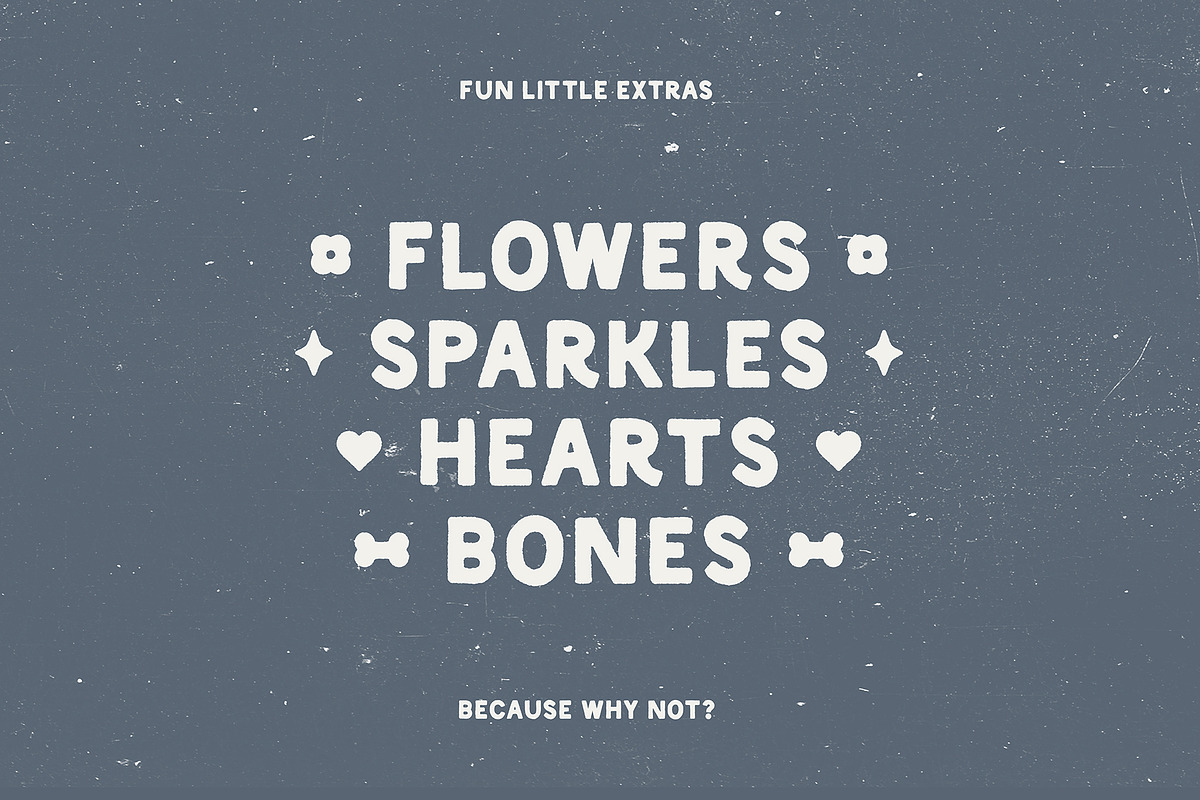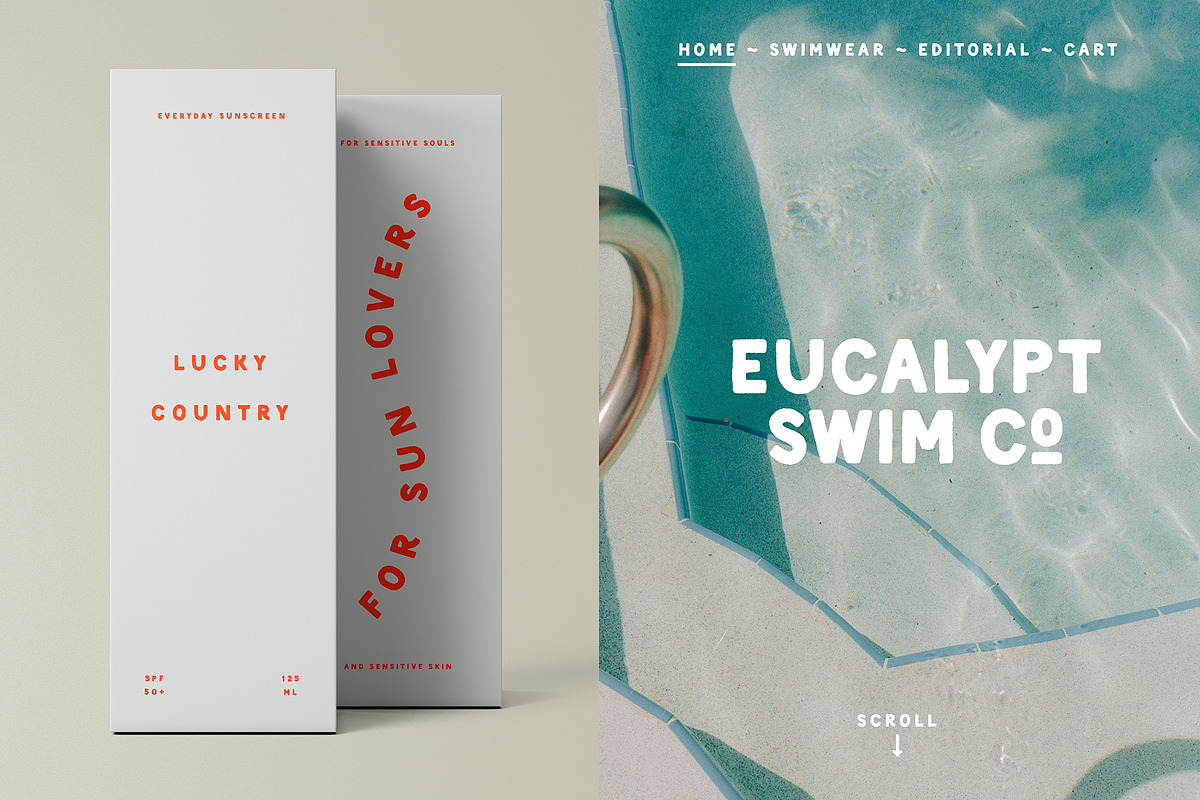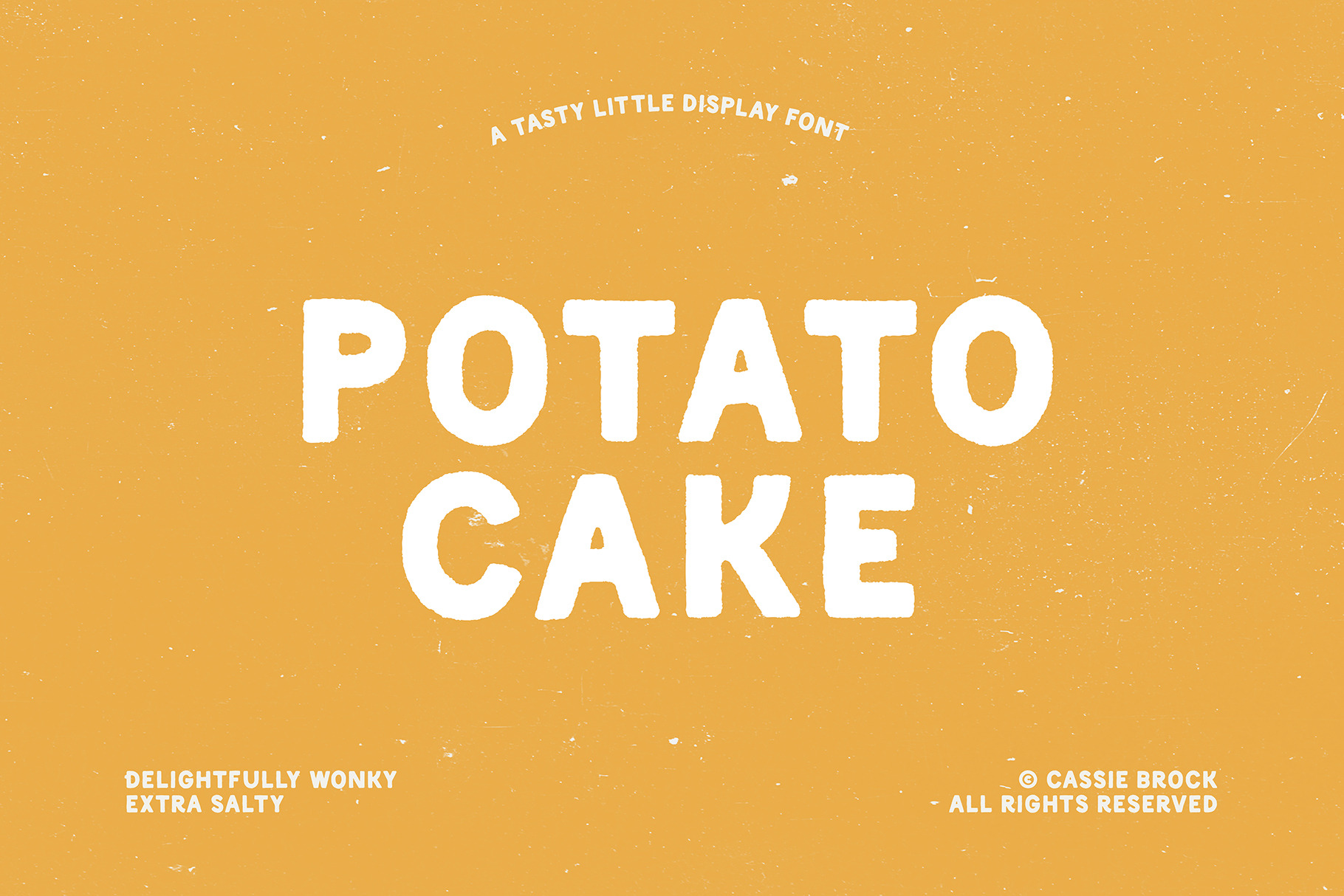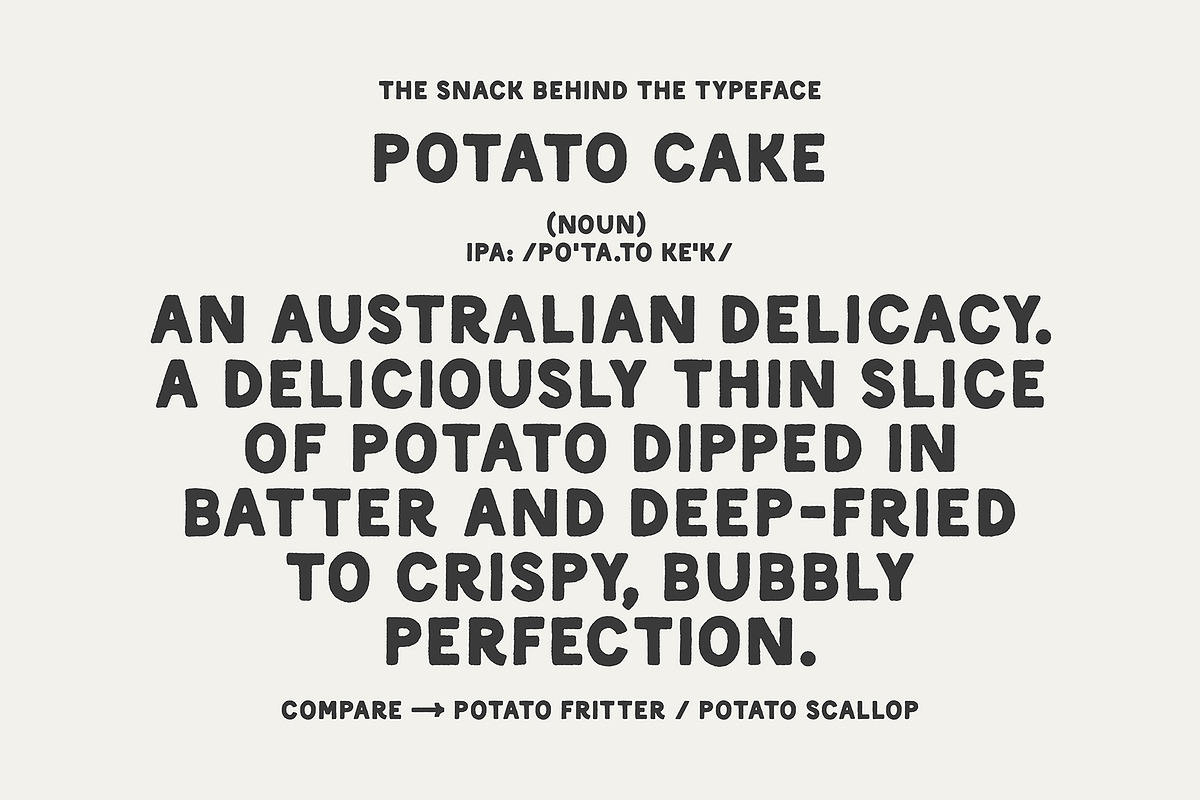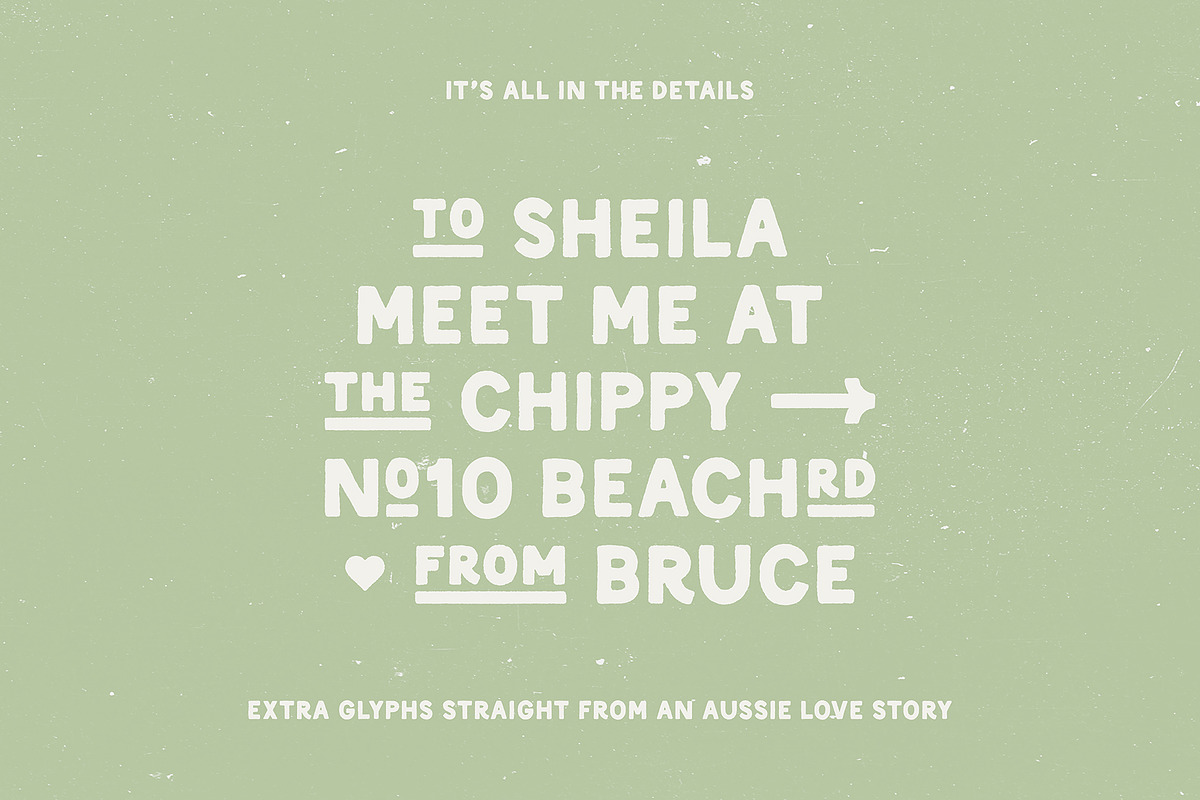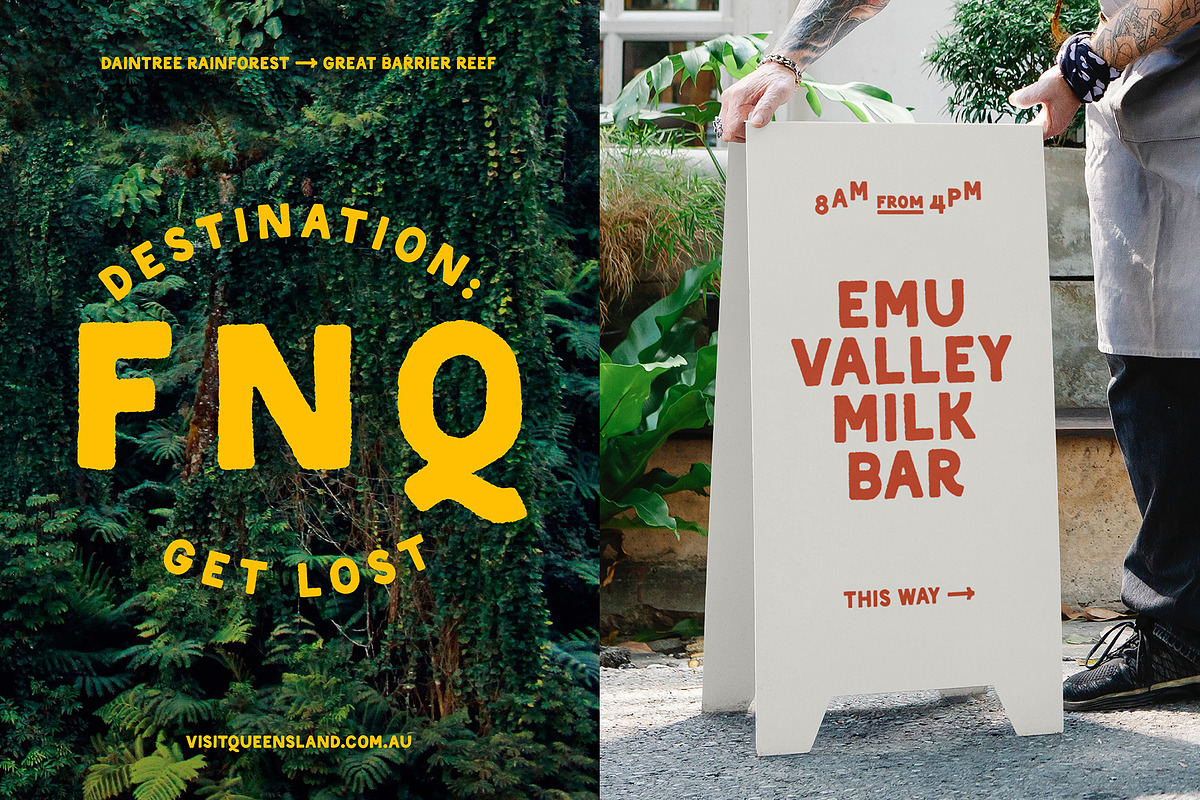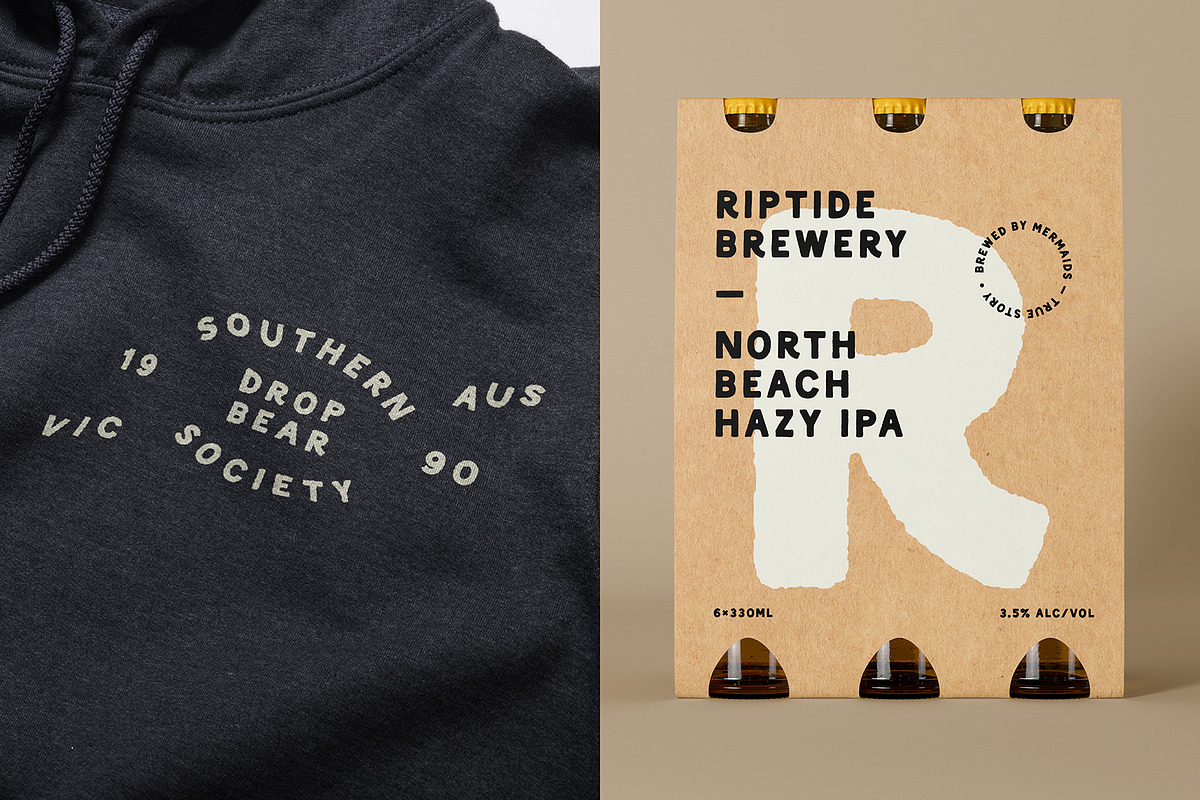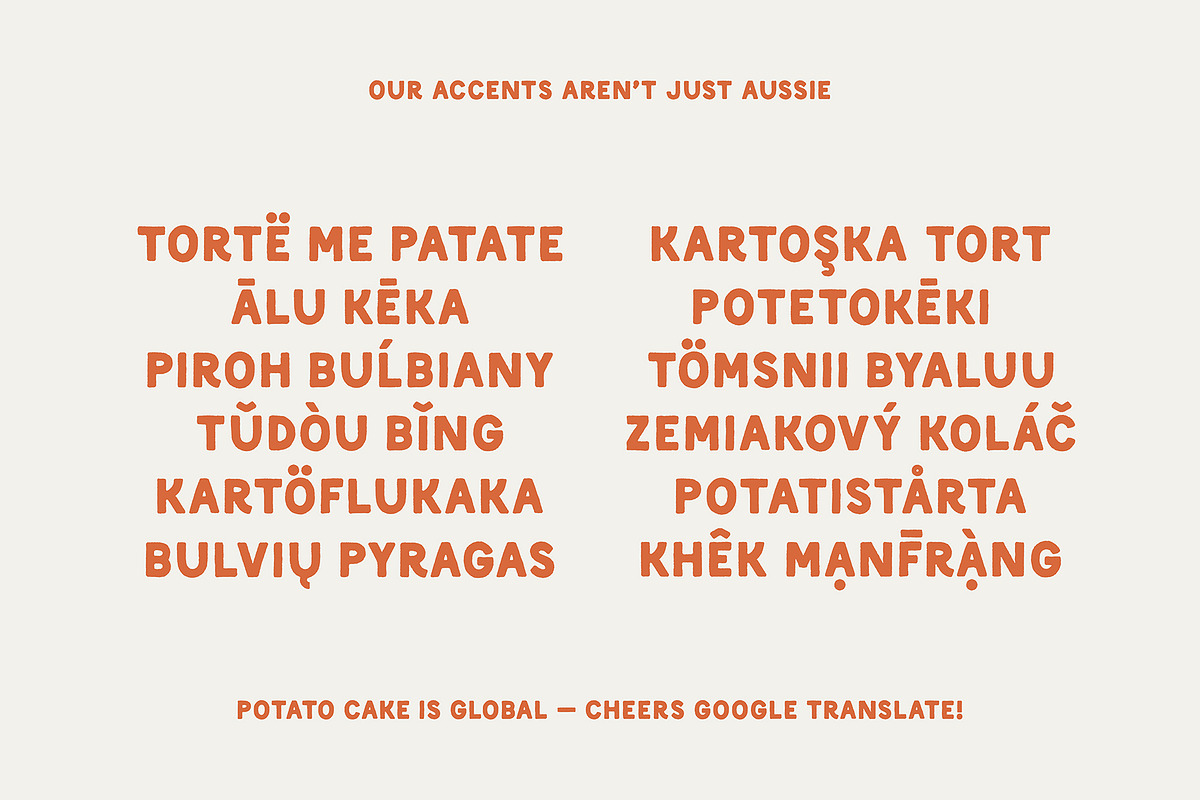
Potato Cake • Hand-drawn font
Introducing Potato Cake. An Australian made, delightfully wonky little font with a bit of vintage charm.
A bit on the quirky & imperfect side, Potato Cake can be used to add a bit of a playful, human touch to any project.